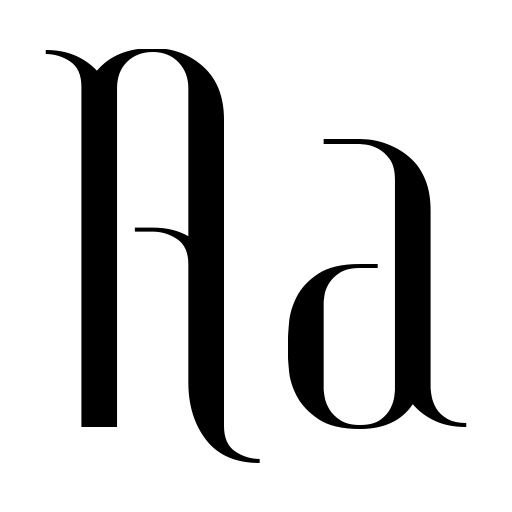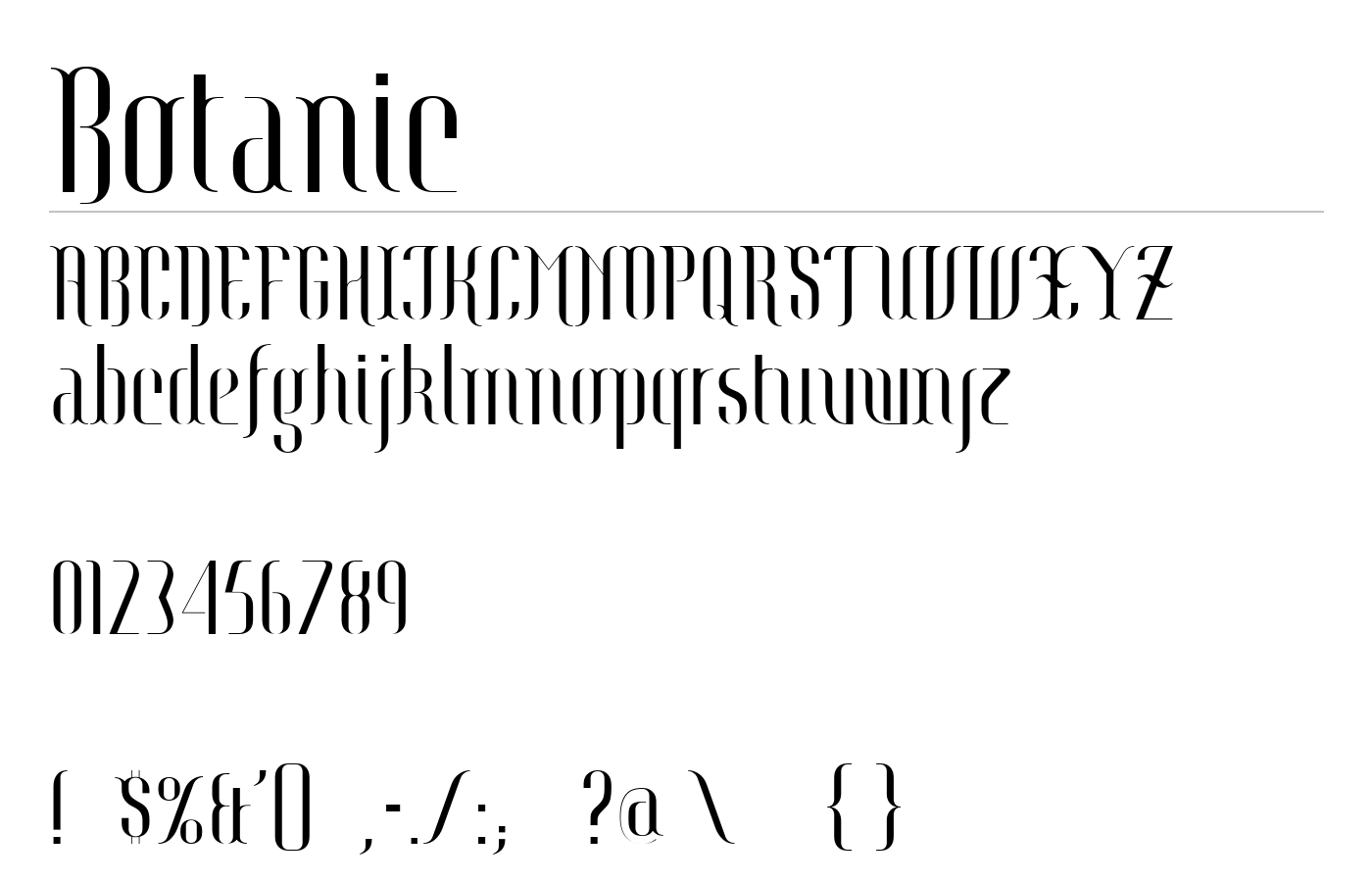
Botanic is a tall, elegant serif font with a modern Didone style, characterized by its high contrast between thick and thin strokes and thin, sharp serifs. Its narrow width and distinctive, slightly ornamental letterforms give it a refined, luxurious feel suitable for fashion branding, editorial headlines, and sophisticated logo design. This font works best in large sizes where its delicate details can shine, adding a stylish and contemporary touch to upscale projects.
Botanic Font
About Botanic Font